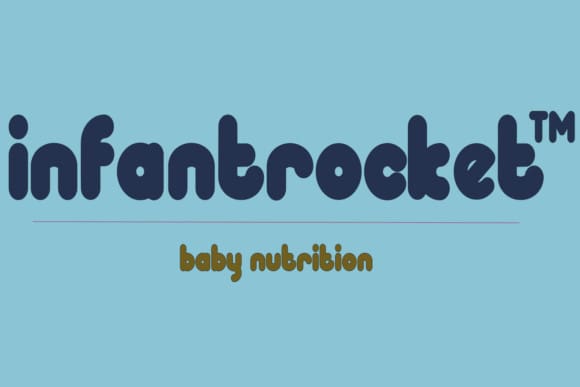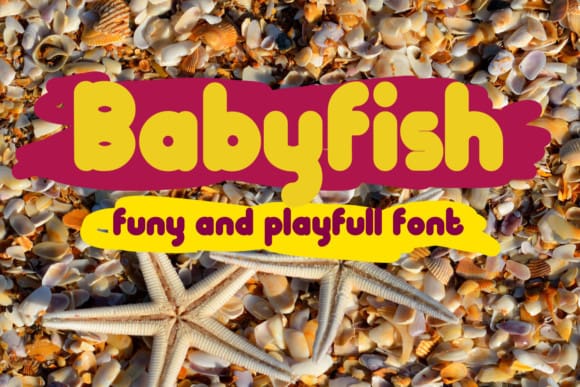
Murisa Babyfish Font
Murisa Babyfish Font is a cool, robotic display font. It can be applied to various creations that could benefit from a futuristic touch.